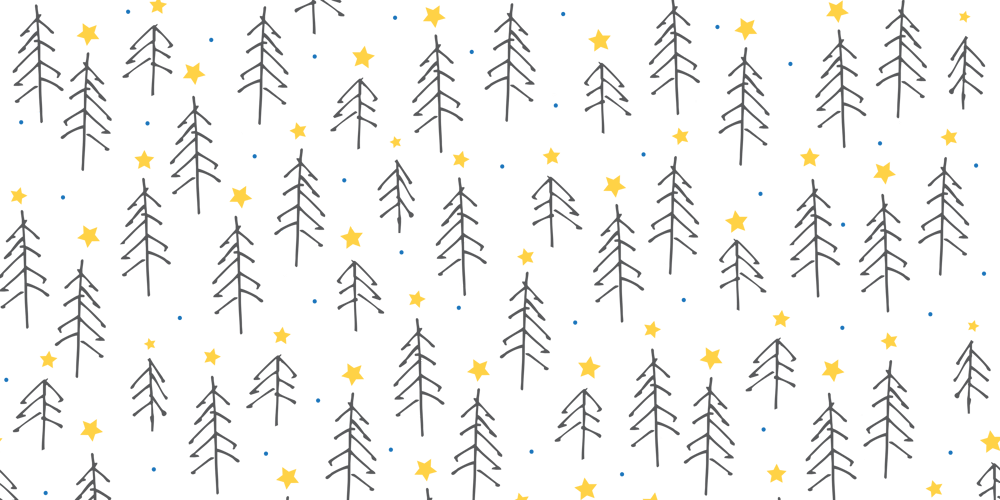
Woodland Doodles Font Family was designed by Rae Kaiser and published by Outside the Line. Woodland Doodles contains 1 styles and family package options. An eye-pleasing collection of 31 Woodland Doodles. Illustrations of 11 trees–traditional and contemporary. A branch, animals, cabin, acorn, flower, leaves, mushrooms, bird’s nest, pine cone and birds on a branch. Coordinating nicely with Lake Vacation Doodles or Farm Doodles.